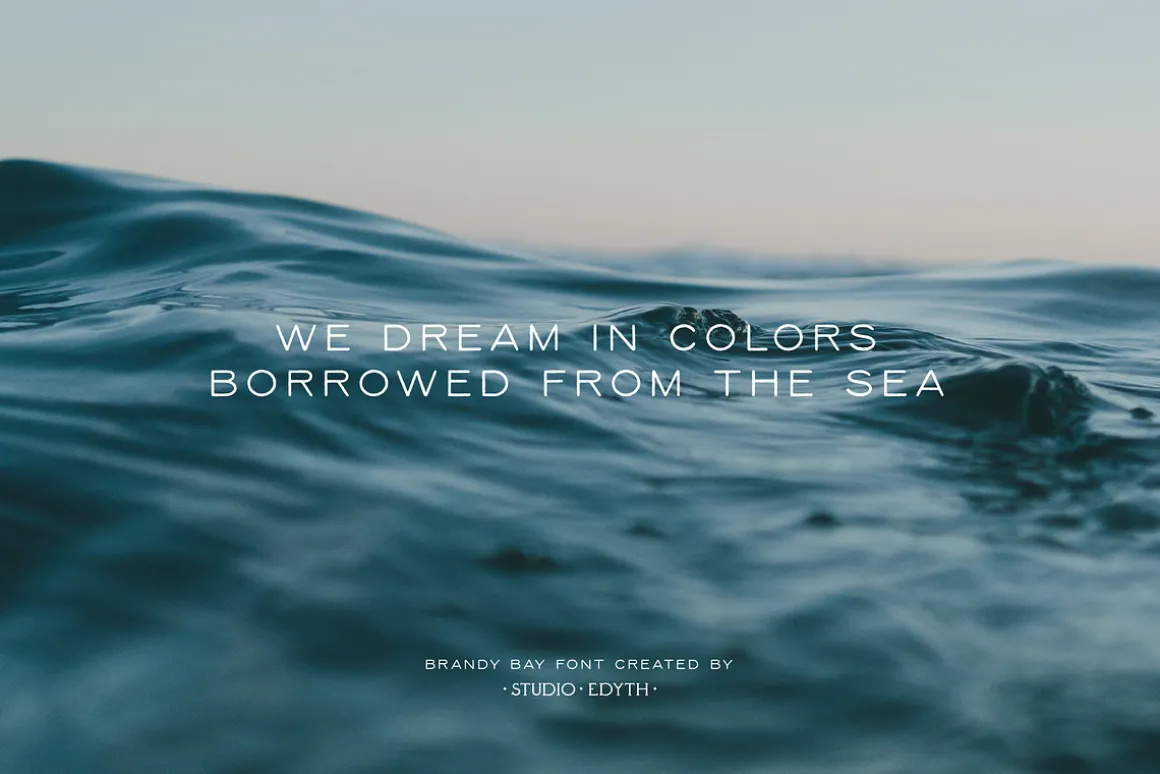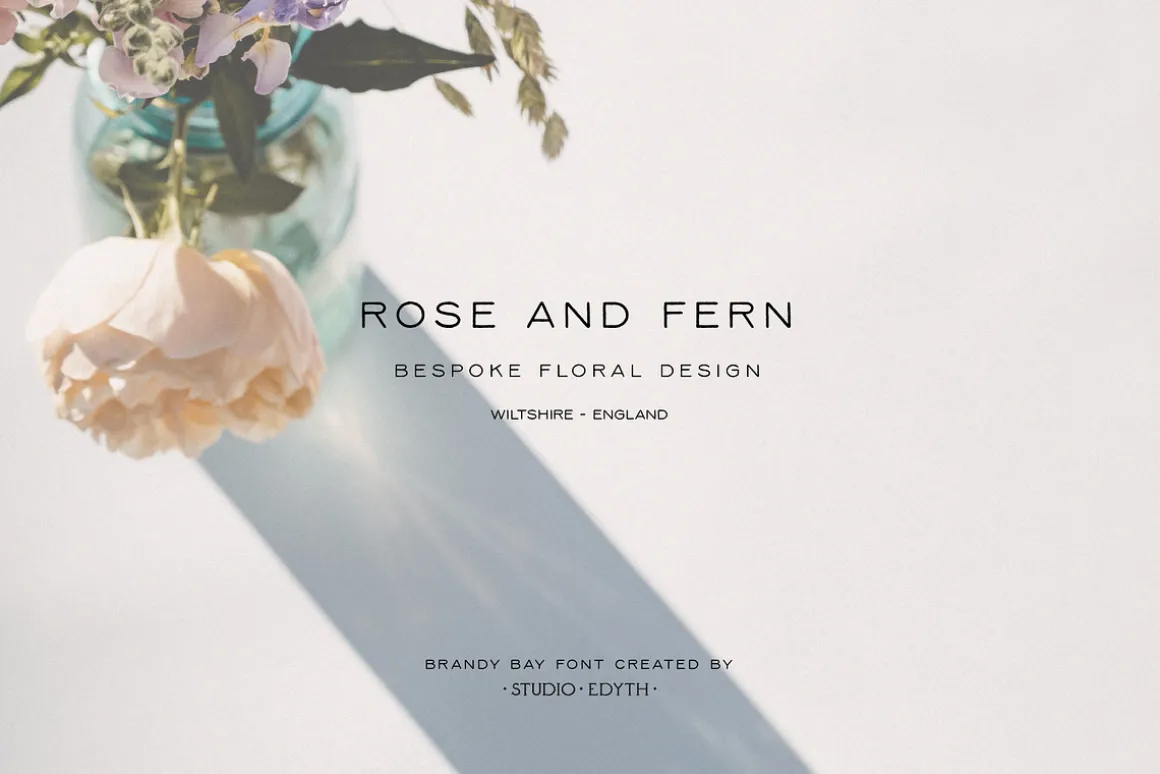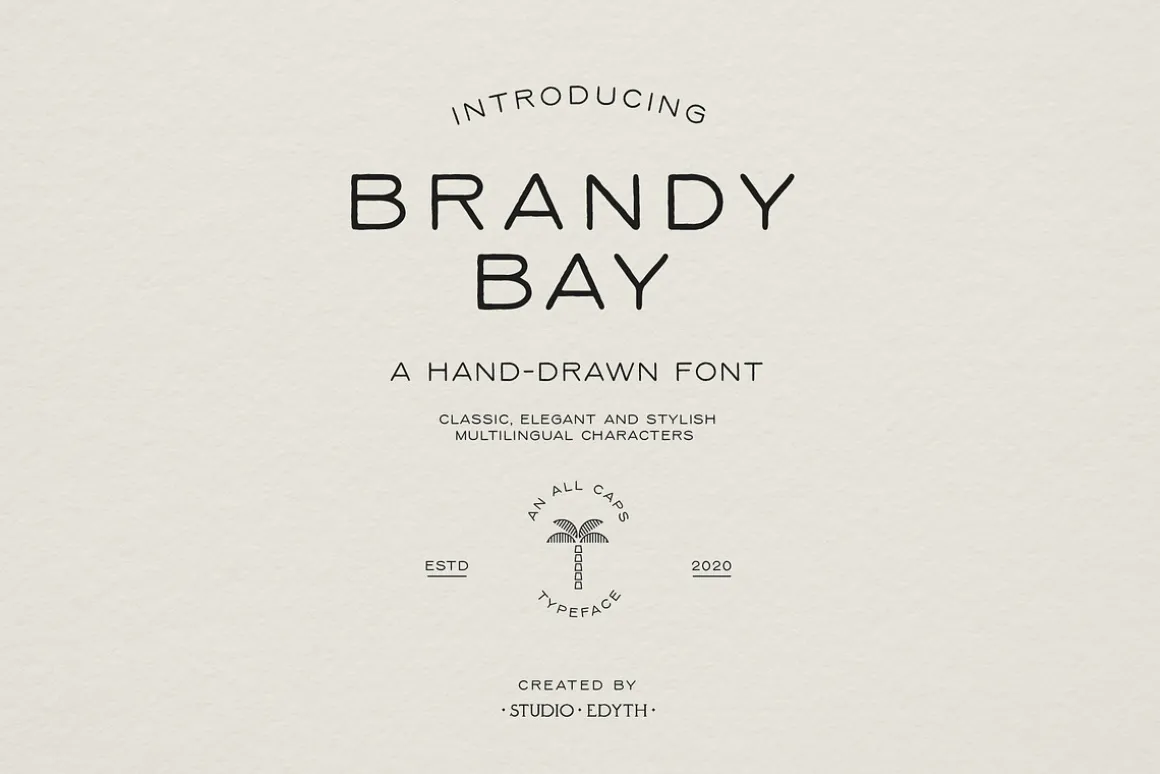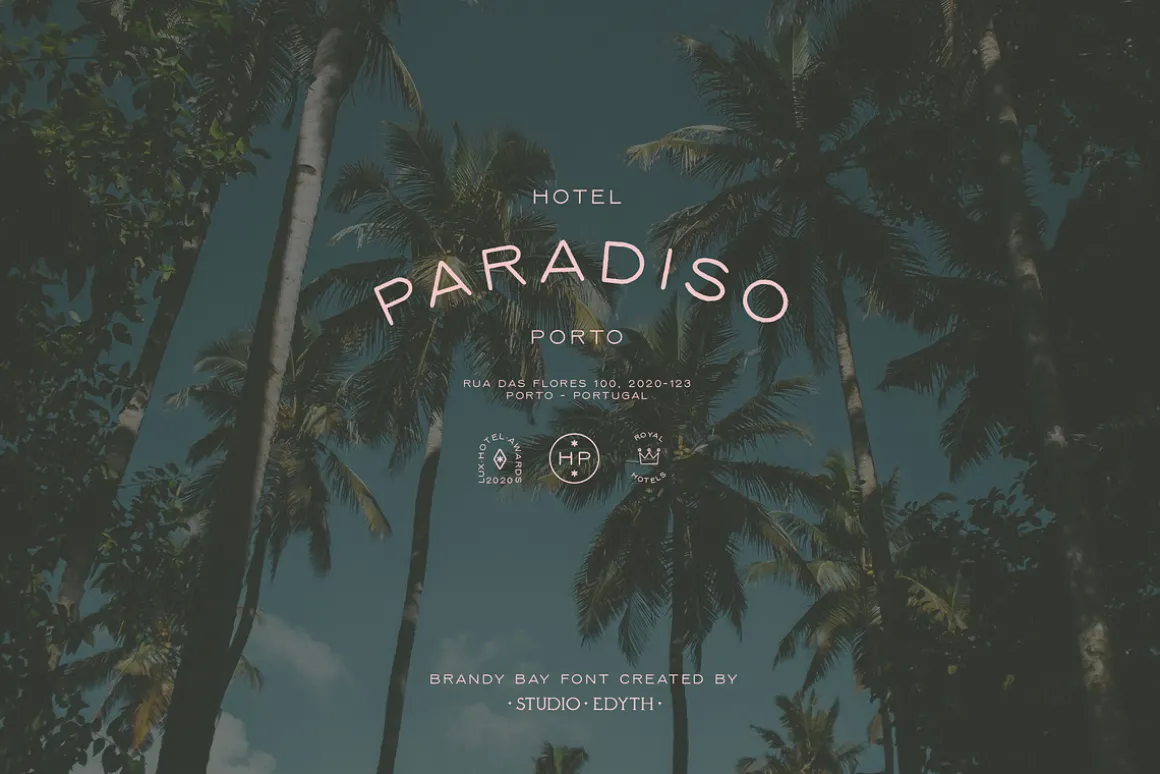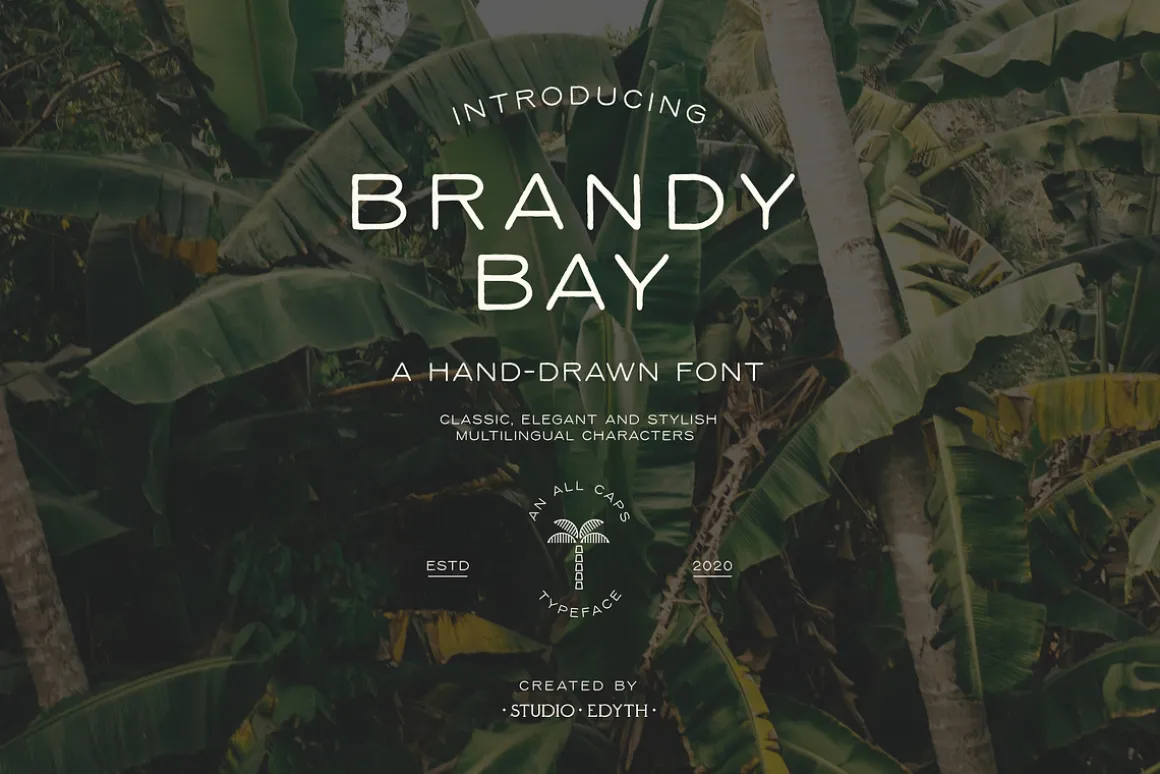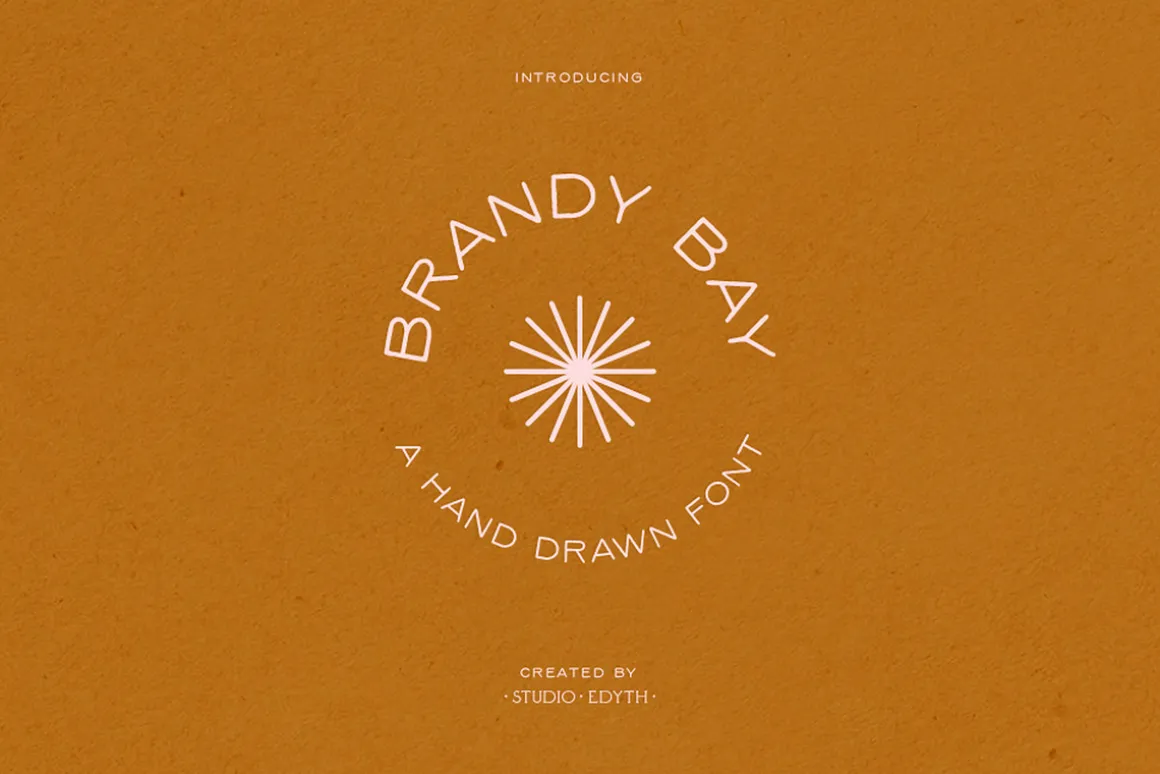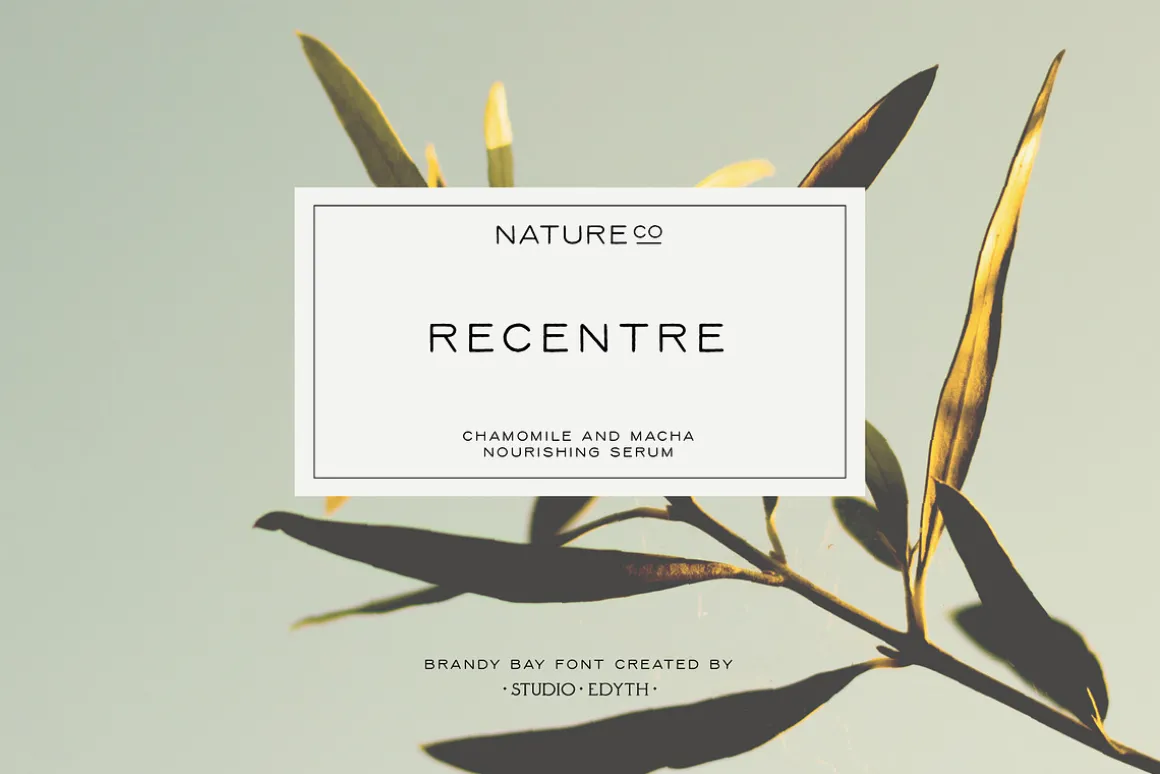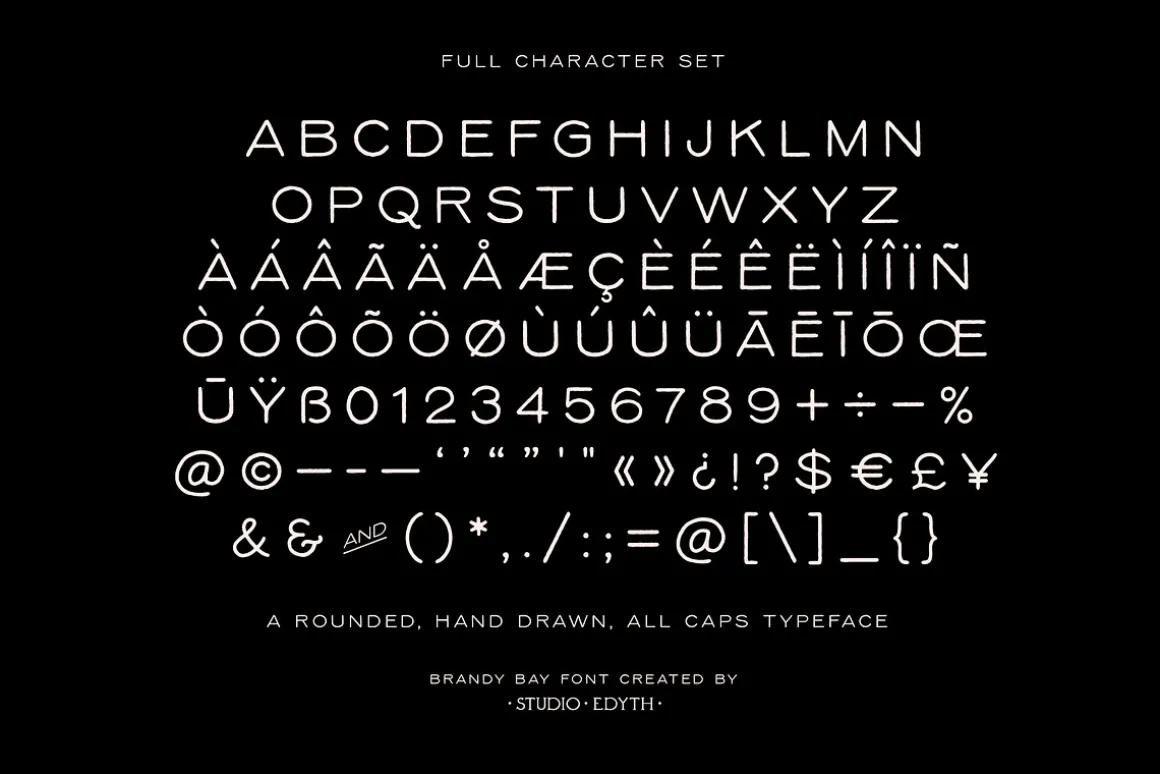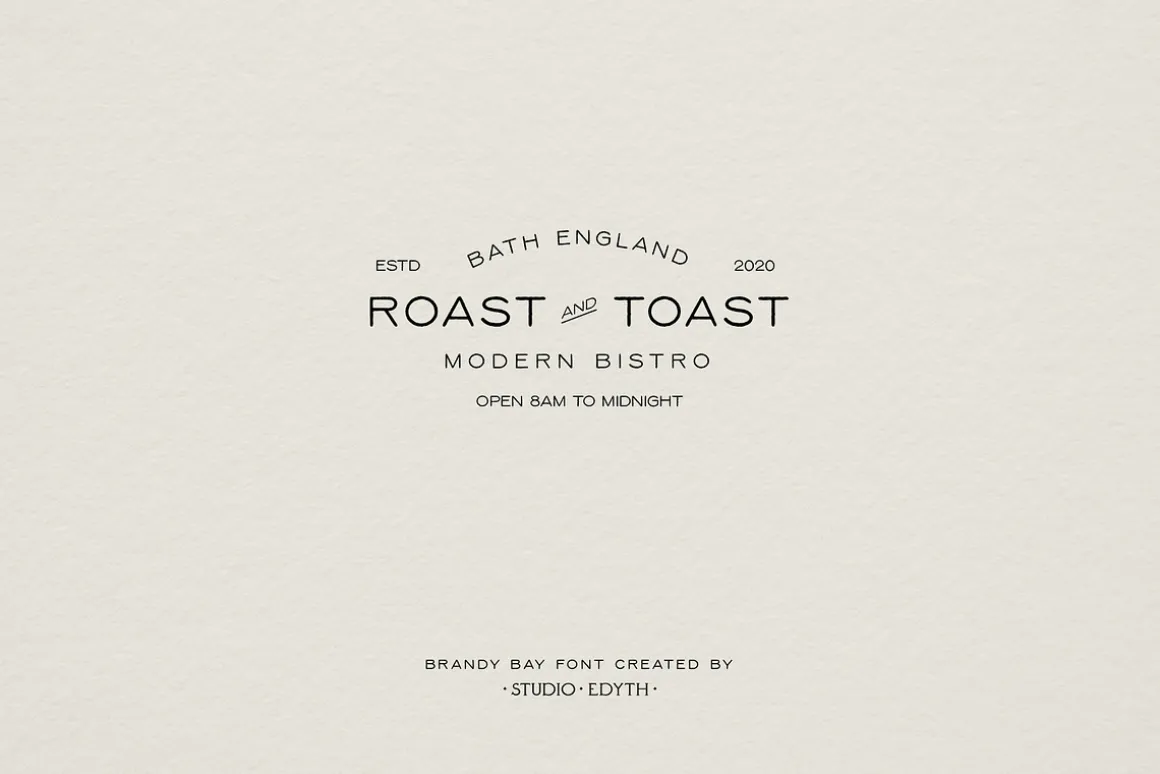
Brandy Bay is a soft and elegant rounded, hand-drawn sans serif font with warmth and character. It’s a versatile typeface with a soft, classic, vintage feel, perfect for branding and logo projects, blogs, instagram, fashion, photography, business cards, stationery and more…
- Uppercase Characters
- 3 Ampersand / And Glyphs
- Multilingual support for various languages including: French, Spanish, Swedish, German, Italian, Portuguese, Dutch, te reo Māori and more…